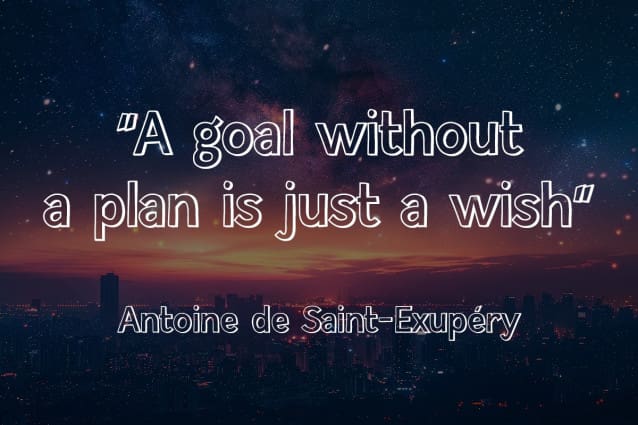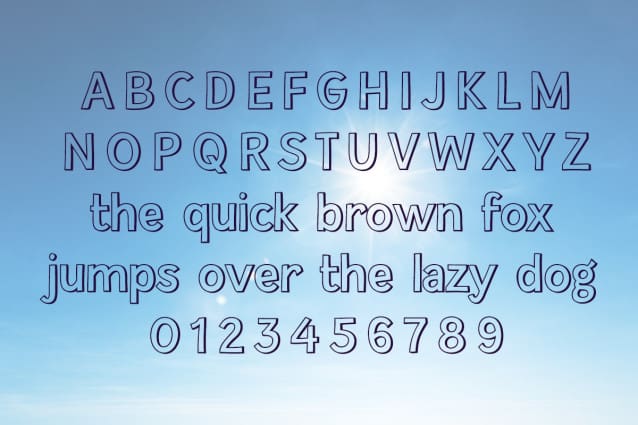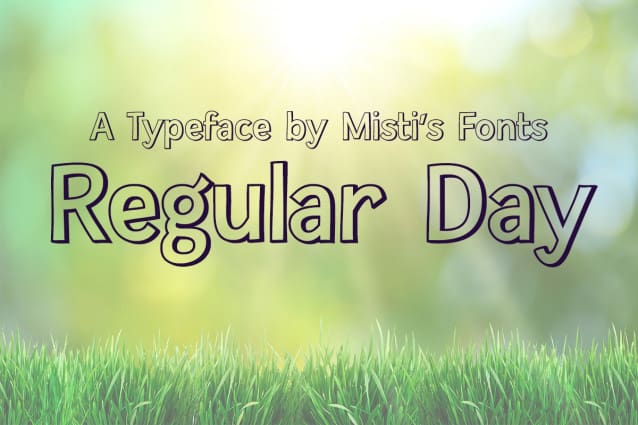
Regular Day Font
Regular Day Font is a captivating sans serif typeface designed to bring a touch of modern elegance to your projects. This font stands out with its unique outlined characters, which provide a clean and sophisticated look, perfect for various design needs. The addition of a subtle yet striking drop shadow adds depth and dimension, making your text pop and catch the eye effortlessly.